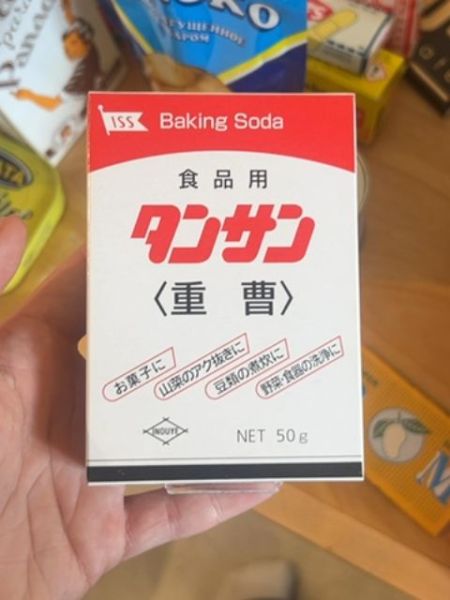
タンサン
A baking soda product used for cooking, cleaning, and personal care purposes.
The typography uses a bold sans-serif font for the product name, providing a strong and modern appearance. The font style is clean and straightforward, enhancing readability. The red color of the main text against the white background ensures high visibility, while additional information is presented in a lighter, more understated font.
The packaging is minimalistic and predominantly white with a bold red banner at the top. It features Japanese characters prominently in red and black, offering a striking contrast for clear visibility.
- Widely used in Japanese households for various purposes.
- Neutralizes odors and can be used in cleaning.
- A staple ingredient in baking and cooking.